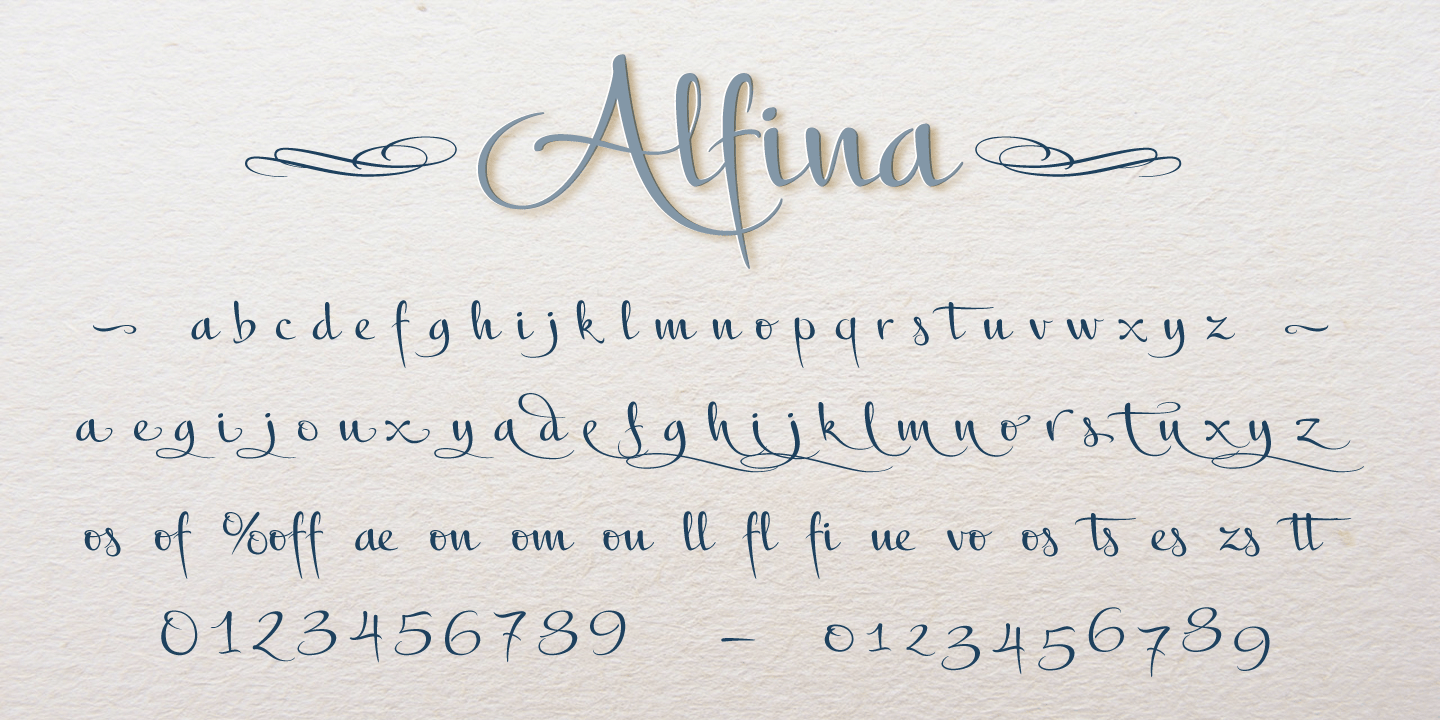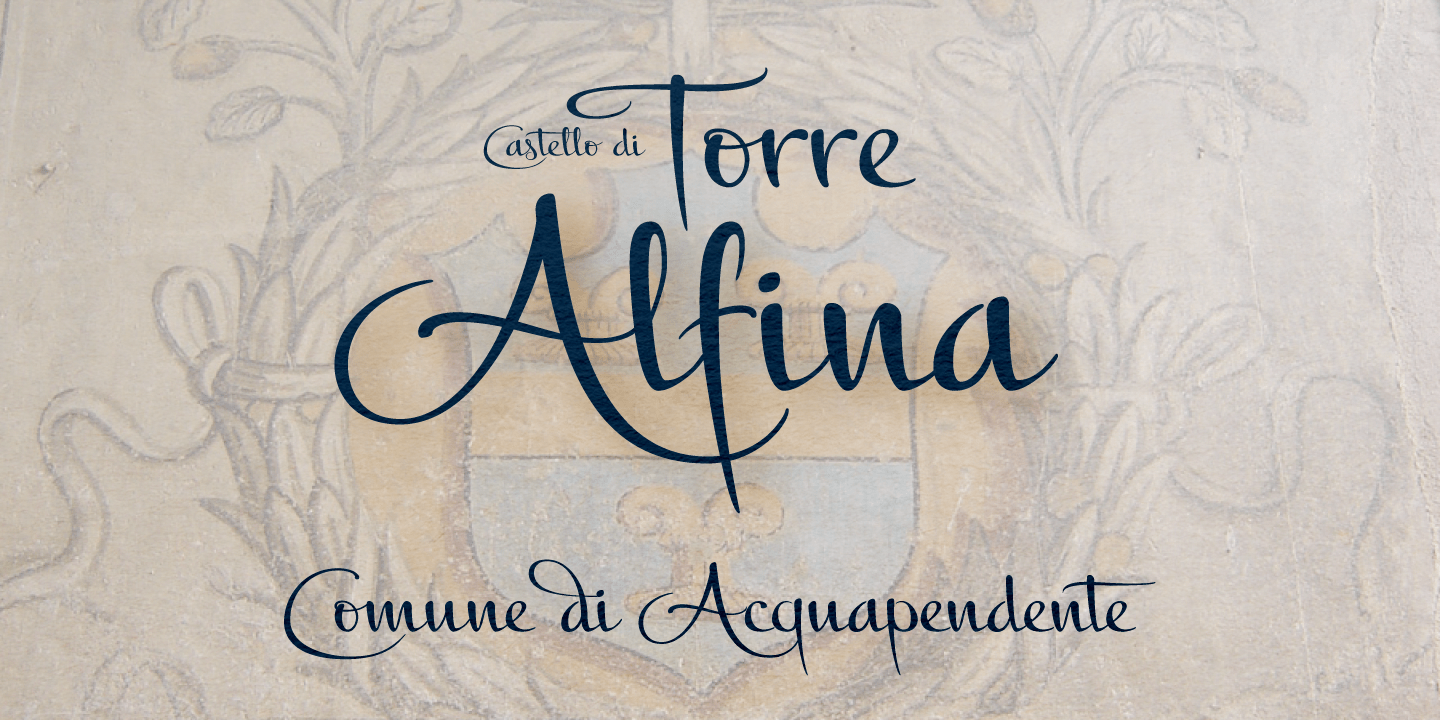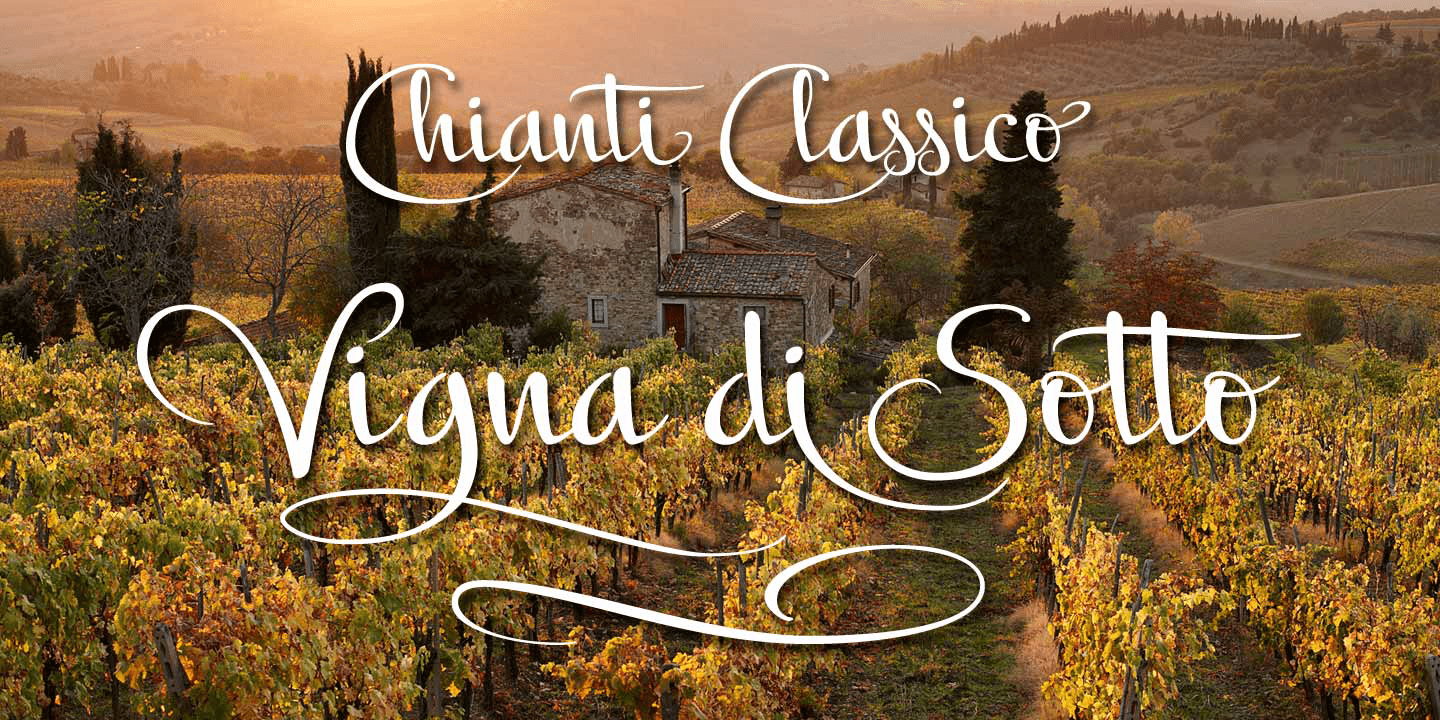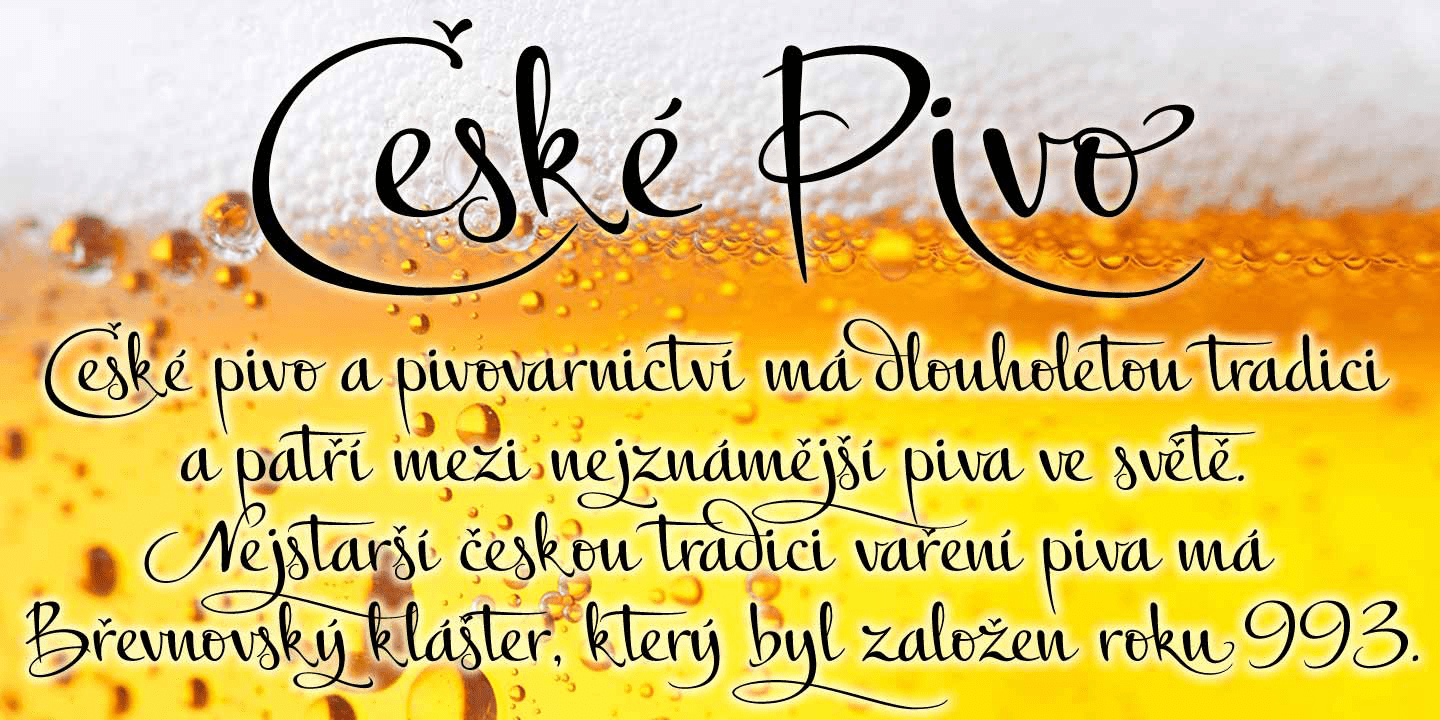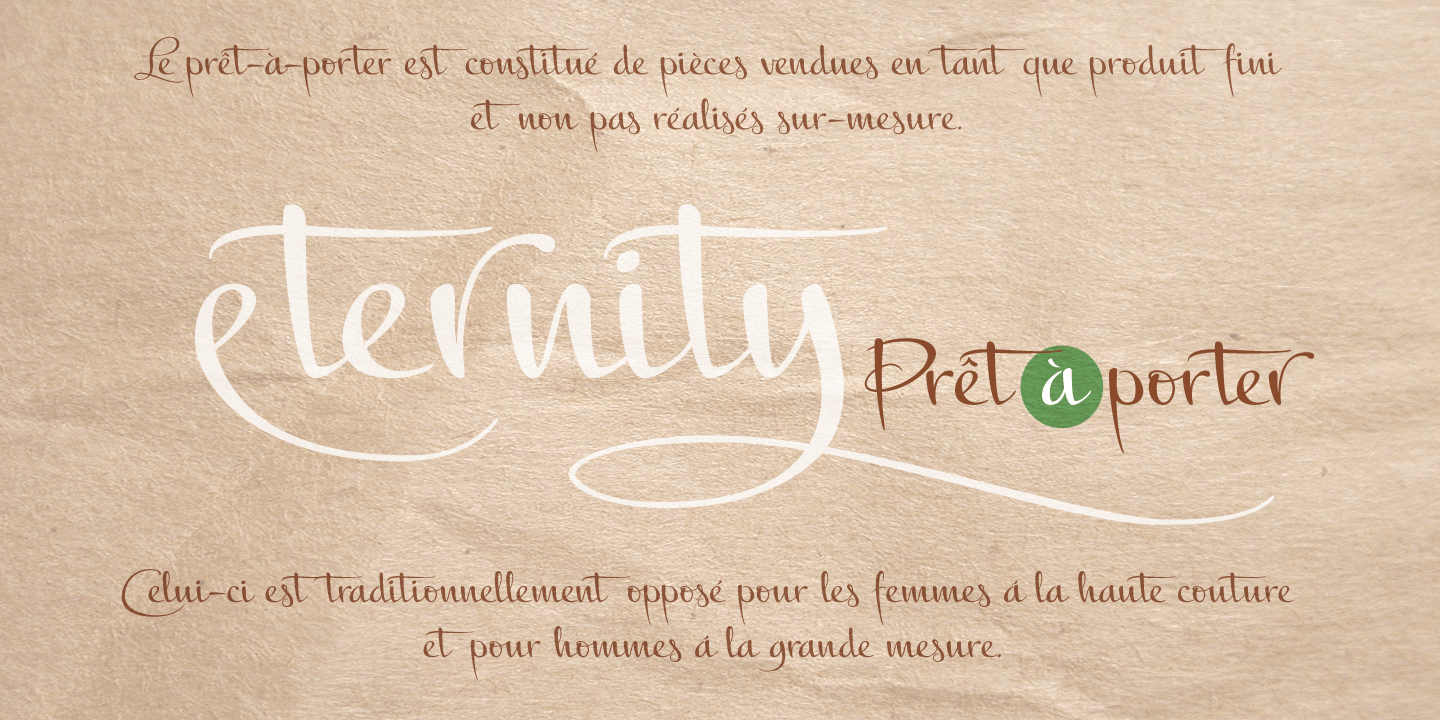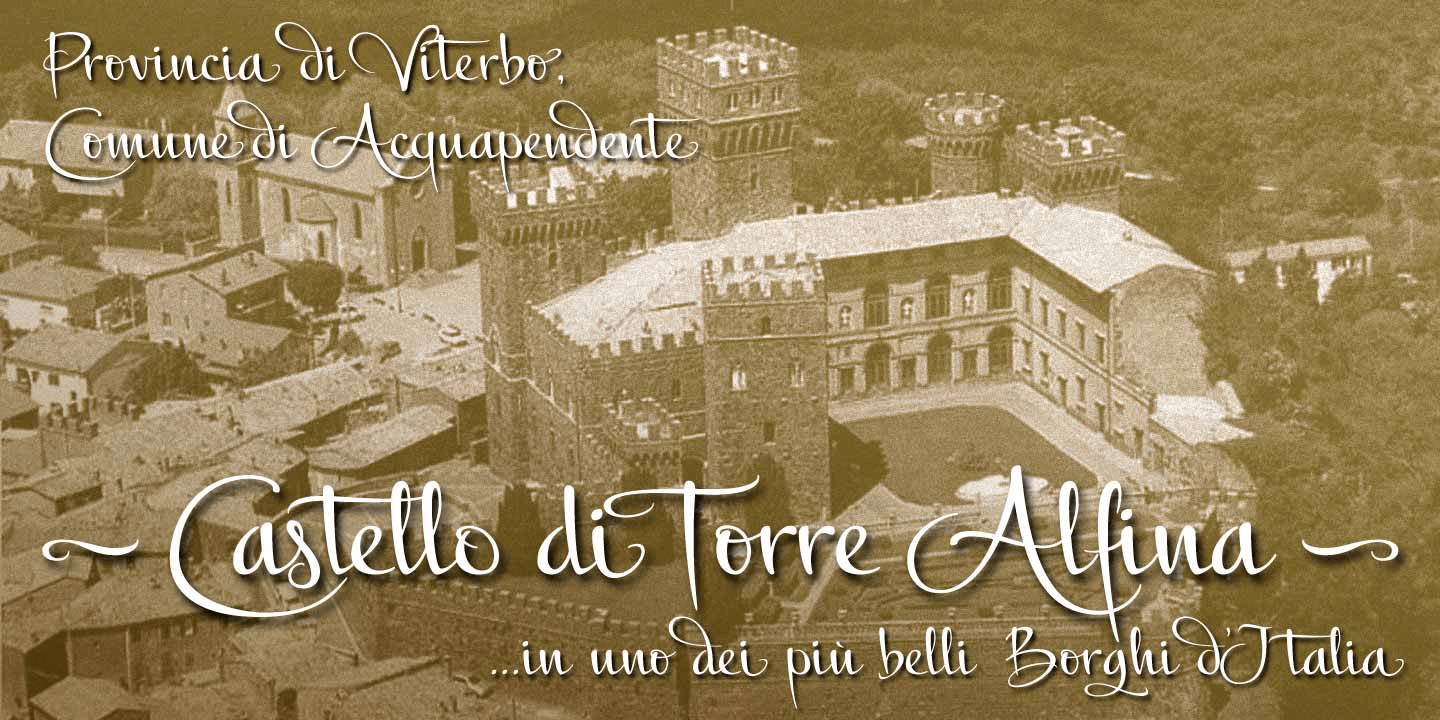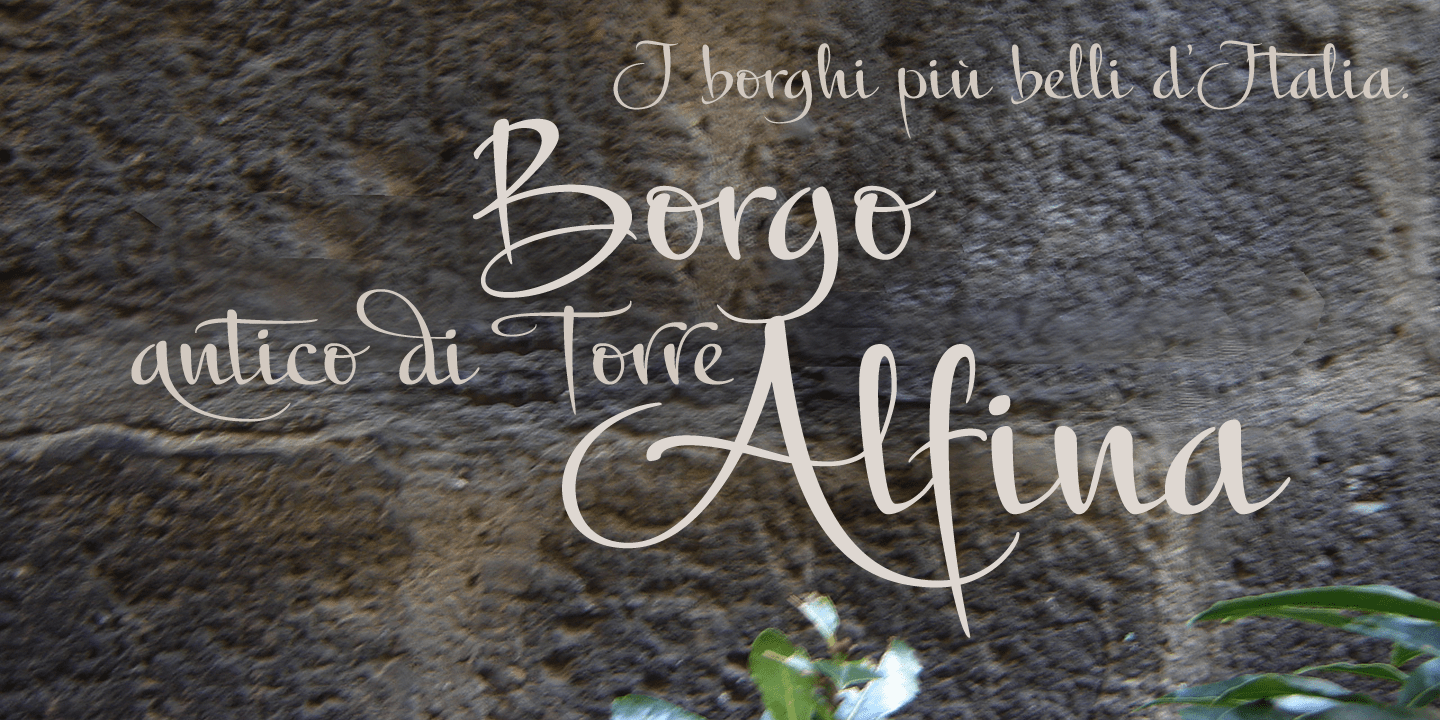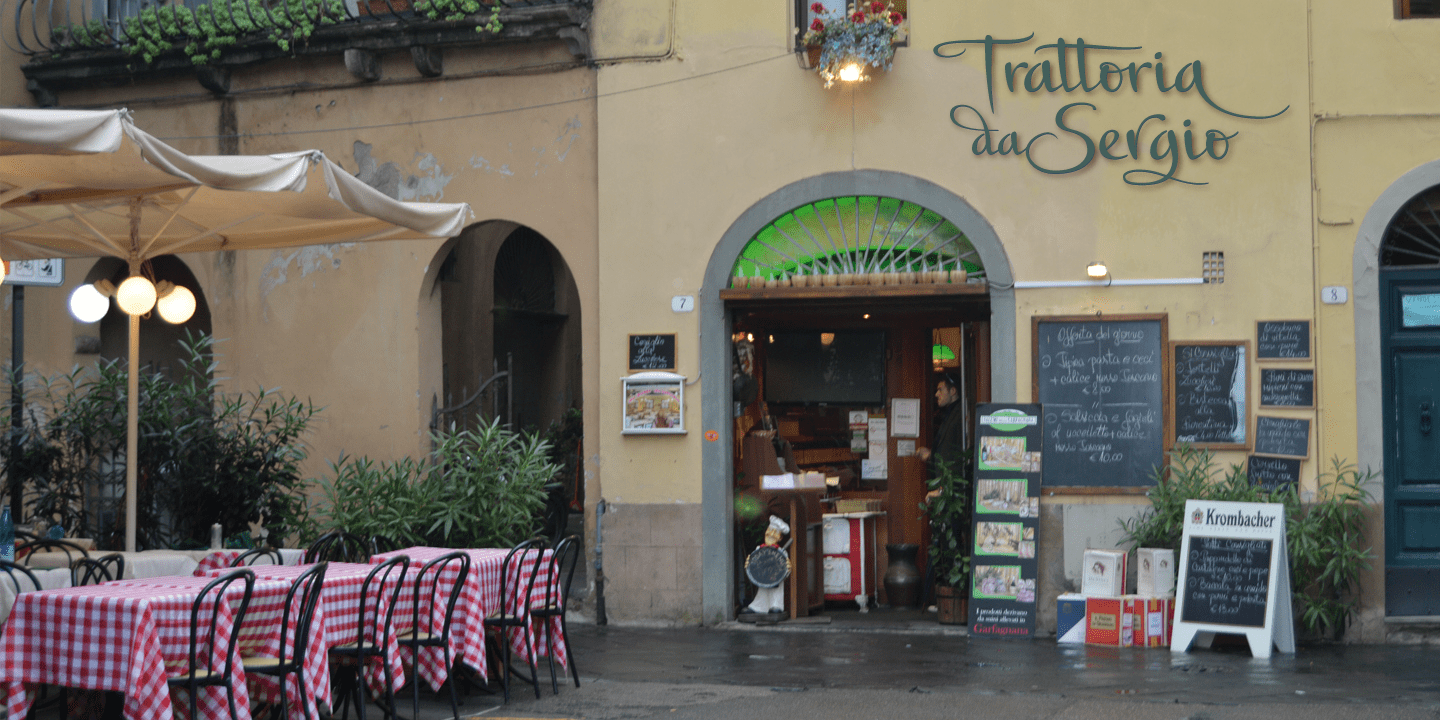
Alfina
Font Family by Eurotypo
Alfina is a chancery typeface that shows a modern temperament, but is inspired by the eponymous town of Torre Alfina, one of the most beautiful medieval villages of Italy, situated on the edge of the plateau Alfina, a few miles from of Orvieto. The place where is the castle is steeped in history. Its roots date back to the Lombard kingdom (seventh century); later it was under the rule of Monaldeschi (1200-1700) and more recently (1880) the property of the rich French banker Count Edoardo Cahen of Antwerp, who was responsible for the present aspect of the Castle. Alfina has soft lines, very slender upper cases and thin overlapping strokes; The stylistic alternates are particularly important, and the type is enriched by many, different OpenType features.